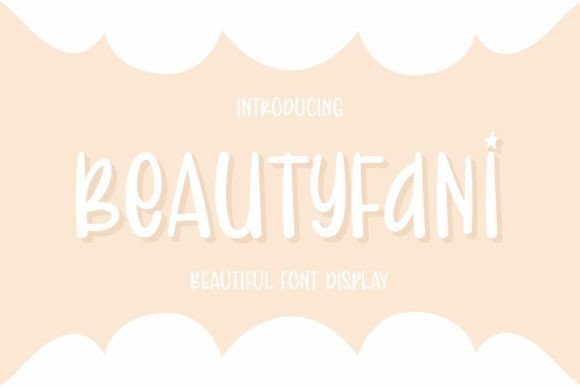
Unlock the Magic of Handmade Typography
Have you ever found yourself staring at a blank canvas, waiting for the perfect spark to ignite your creativity? That’s where the Beautyfani Font comes in – a playful display font that’s sure to add a touch of whimsy to your next design project.
Designed to feel delightfully handmade, Beautyfani Font is the perfect tool for designers looking to add a little extra flair to their work. With its masterful design, this font has the potential to elevate your creative ideas to new heights. Whether you’re working on a campaign, a product launch, or simply a personal project, Beautyfani Font is the perfect addition to bring your vision to life.
Beautyfani Font Key Features
- Unique Characteristics: The font features a unique blend of elegant and modern design elements, with subtle curves and geometric shapes that create a sophisticated look.
Design Review: Beautyfani Font
Initially, I was drawn to the Beautyfani Font for its unique blend of modern and vintage elements ✨. The font’s elegant curves and classic feel make it an excellent choice for projects requiring a touch of sophistication. I appreciate the font’s versatility, as it can be used for a wide range of applications, from fashion and beauty to home decor and travel.
However, there are some limitations to consider ⚠️. The font’s irregularities can sometimes make it difficult to read, particularly in smaller font sizes. Additionally, the font’s overall feel may not be suitable for projects requiring a more modern or edgy aesthetic. I also found that the font’s weight and spacing can be inconsistent at times, which may require additional adjustments in design.
Overall, the Beautyfani Font is a solid choice for designers seeking a classic and elegant font. While it may not be perfect, its unique character and versatility make it a great addition to any design arsenal.
Beautyfani is a versatile font suitable for various design projects, including:
- Body text and articles
- Social media graphics and ads
Experiment with different font sizes, colors, and styles to get the most out of Beautyfani.